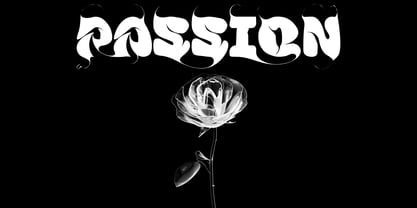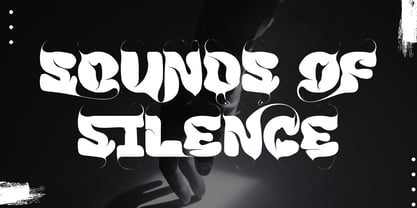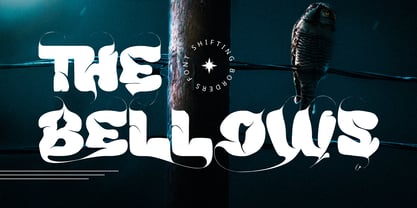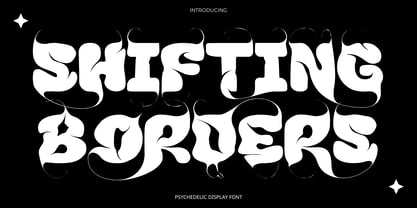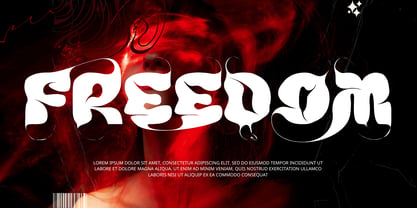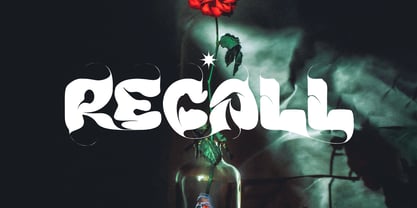
Shifting Borders
Shifting Borders is a groovy psychedelic display typeface that brings the fluid energy of 1970s lettering and contemporary acid graphics to bold creative projects. Drawing deep inspiration from 1970s groovy typography and contemporary acid graphics, this typeface features melting letterforms, dramatic curves, and razor-sharp, hooked terminals that demand instant attention.
With its heavy-weight structure and organic negative space cutouts, Shifting Borders creates a mesmerizing visual rhythm. It’s built specifically for designers looking to create standout titles, edgy branding, album art, festival posters, streetwear apparel, and psychedelic visual concepts.